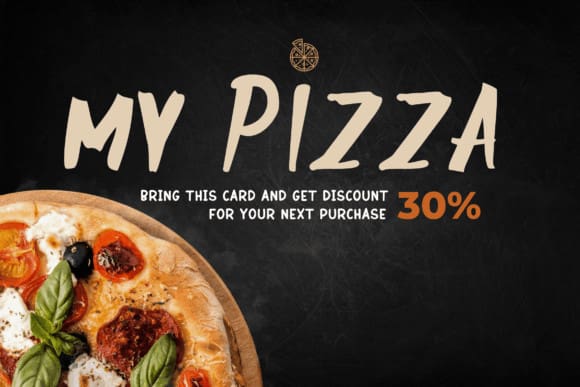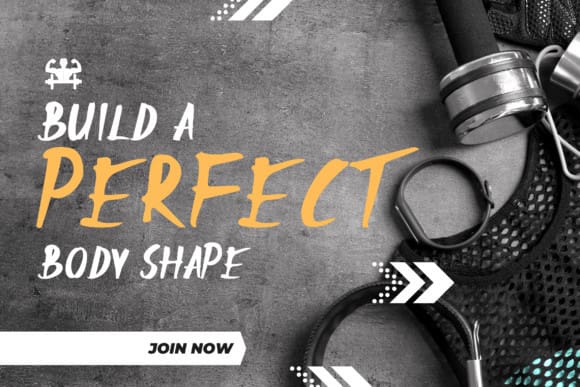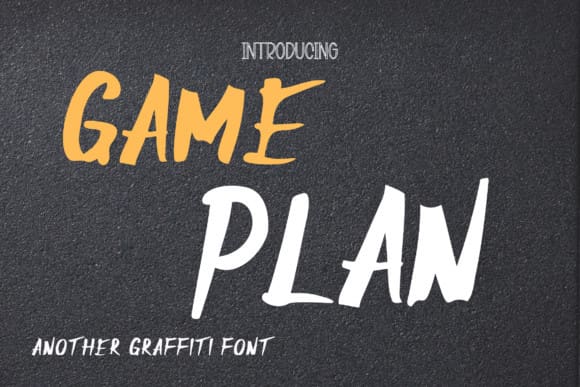
Game Plan Font
Game Plan Font is a street-wise and sharp brush font showing spirit and energy. With the sharp and strong strokes detail, GamePlan is ideal for logos, apparel, quotes, product packaging or anything that need an extraordinary typographic design.